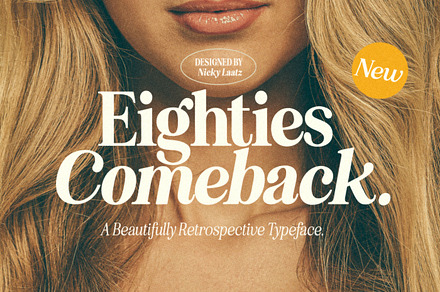
Eighties Comeback Serif (70 fonts)
A serif collection running to 70 fonts, covering eighties styling across an unusually broad range of weights, widths and variants.
Collections at this scale are effectively archives, and the value is in having every variant available rather than in any individual cut.
• Extensive weight and variant range
Made for
• Retro and eighties branding
• Music and event design
• Merch and apparel print
• Editorial and packaging